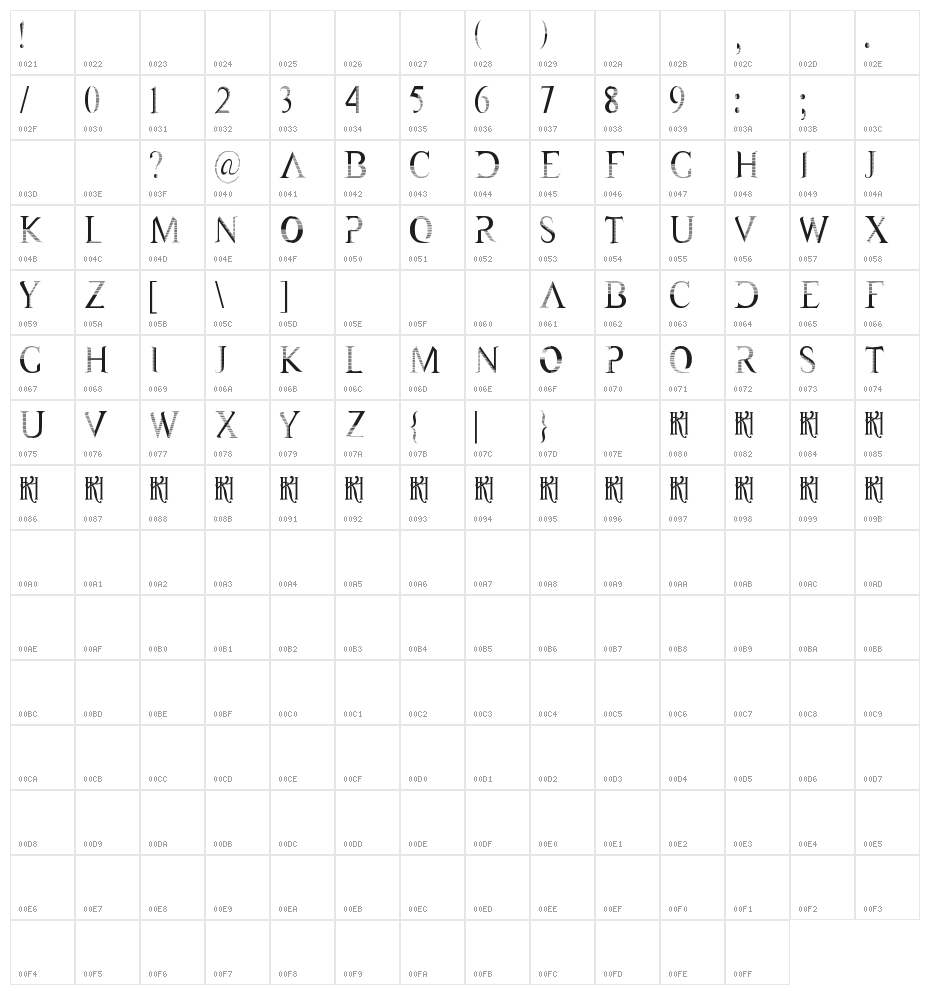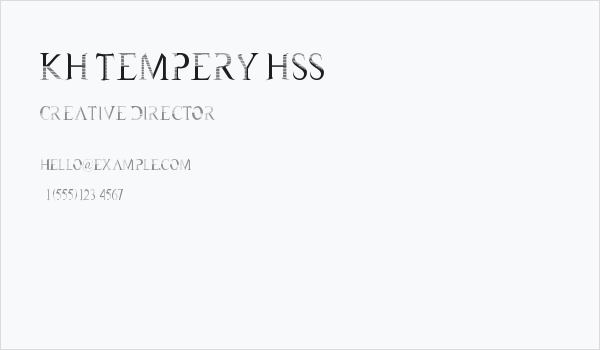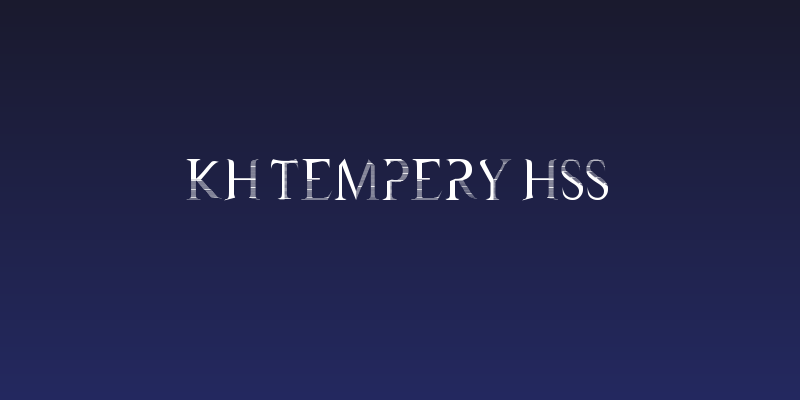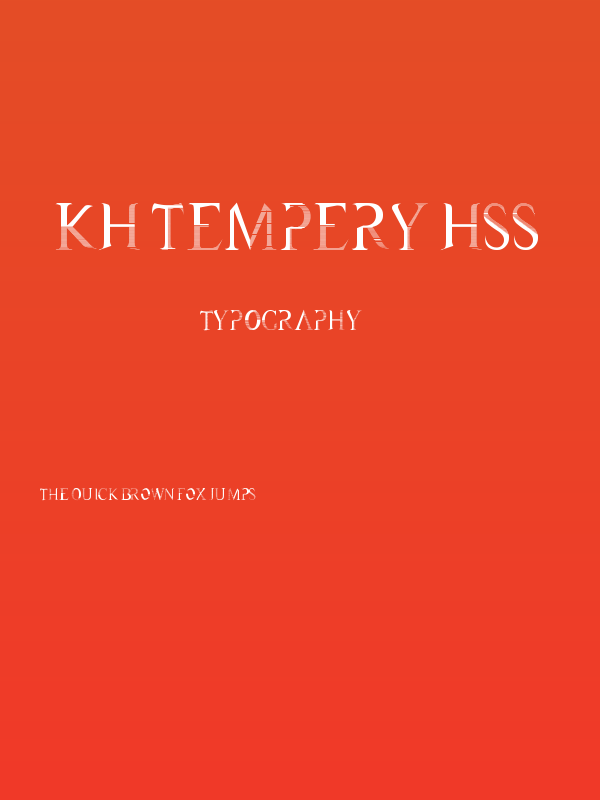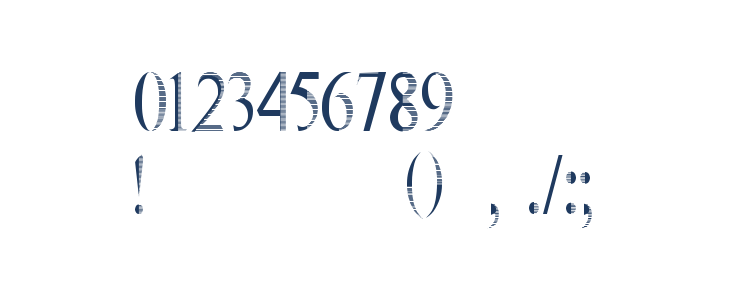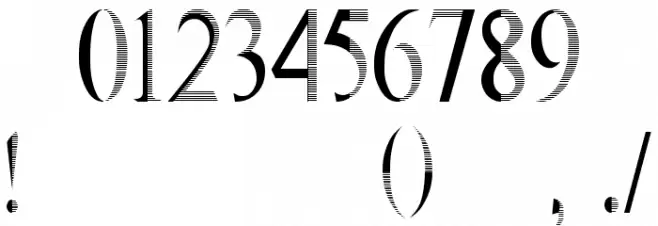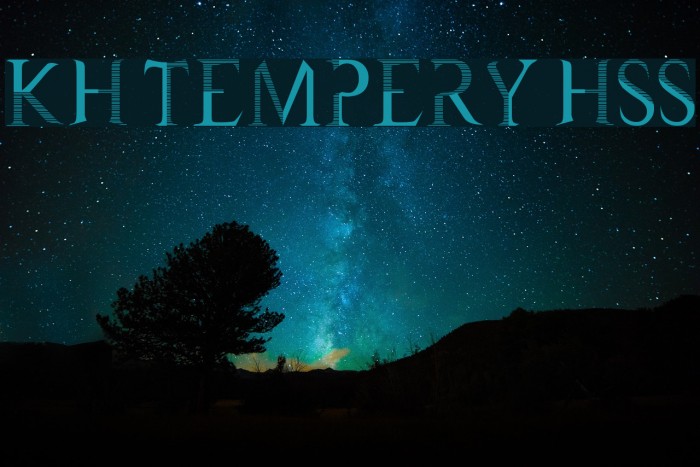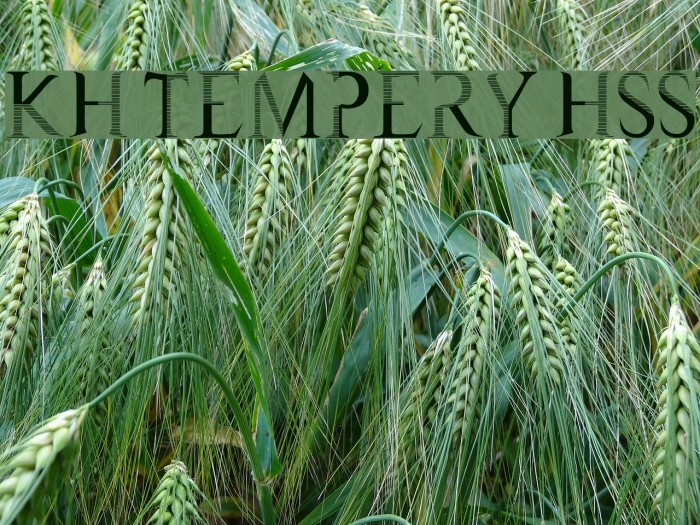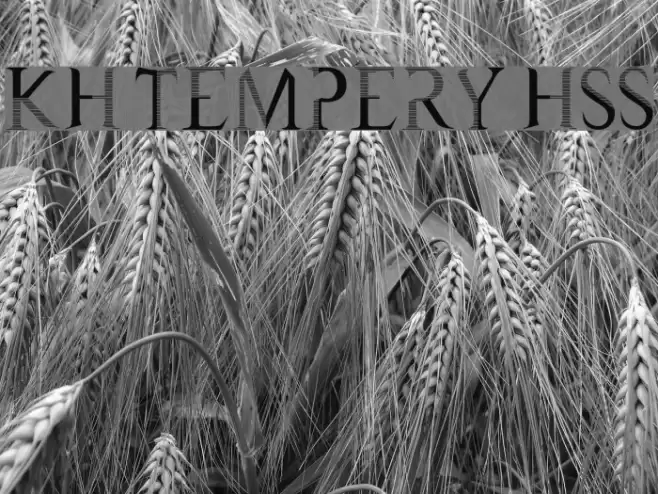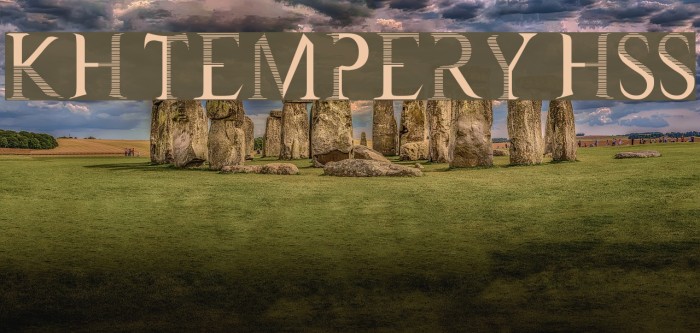
KH Tempery HSS Font
KH Tempery HSS Description
This font features a unique blend of modern and classic elements, characterized by its bold, angular serifs and high contrast between thick and thin strokes. The uppercase letters exhibit a strong presence with their sharp edges and distinctive style, while the lowercase letters maintain a consistent design that complements the uppercase. The numerals are equally striking, with a uniform height and a design that mirrors the letterforms. Special characters are crafted with the same attention to detail, ensuring a cohesive look across all glyphs. The font's overall appearance is both sophisticated and edgy, making it suitable for a variety of creative applications.